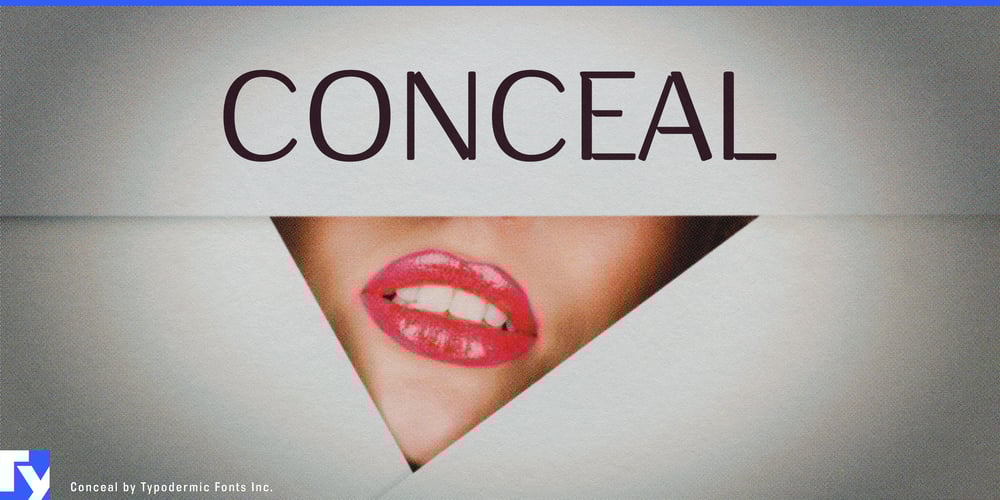
Conceal
Conceal font
Conceal Font Family was designed by Ray Larabie and published by Typodermic. Conceal contains 1 styles and family package options. Indulge in the epitome of typographic luxury with Conceal—a display typeface that embodies the allure of haute couture and the sophistication of premium beauty. Inspired by the sleek lines of high-end cosmetics, Conceal’s letterforms flow with the grace of a perfectly applied stroke of eyeliner, each glyph a masterpiece of elegance and refinement.Meticulously crafted, Conceal’s smooth contours and flawless finish mirror the artistry of a skilled makeup artist. Its lipstick-like strokes and curvaceous forms blend seamlessly to create a typeface that doesn’t just communicate—it seduces. This is typography that whispers of exclusive boutiques, glossy magazine spreads, and the subtle sheen of freshly applied foundation.Imagine your brand adorned in Conceal—logos that exude timeless glamour, packaging that beckons to be touched, and headlines that capture attention with their sheer beauty. From luxury skincare lines to haute couture collections, Conceal elevates every project it graces. It’s the typographic equivalent of a signature scent—distinctive, memorable, and utterly captivating.Conceal’s versatility extends beyond mere aesthetics. Like a globe-trotting supermodel, it effortlessly crosses borders, supporting an extensive array of Latin-based European writing systems. It glides through the fashion capitals of Paris and Milan with the same poise it exhibits in the emerging style hubs of Eastern Europe. This typeface doesn’t just speak multiple languages; it does so with an accent of pure luxury, ensuring your message maintains its allure whether it’s adorning a Parisian parfumerie or gracing the signage of a chic Viennese boutique.